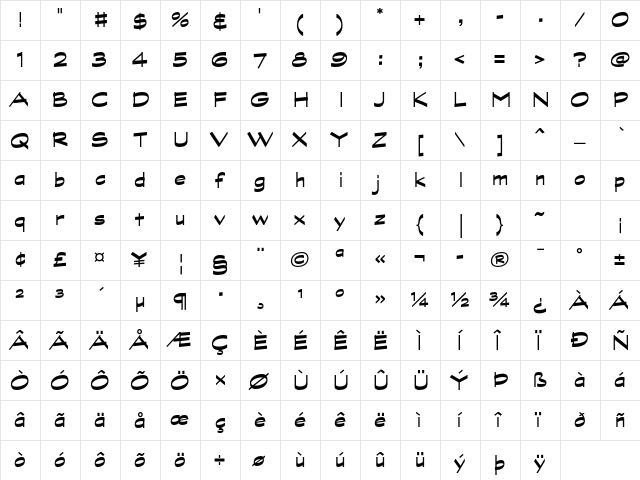
Graphite Std Bold Font Preview
Graphite Std Bold
Graphite Std Bold Font Details
| Designer | David Siegel |
Design Context for Graphite Std Typeface
Graphite Std is a composed and adaptable typeface that performs quietly and consistently across a wide range of design contexts. Its bold stroke weight gives it real presence on the page.